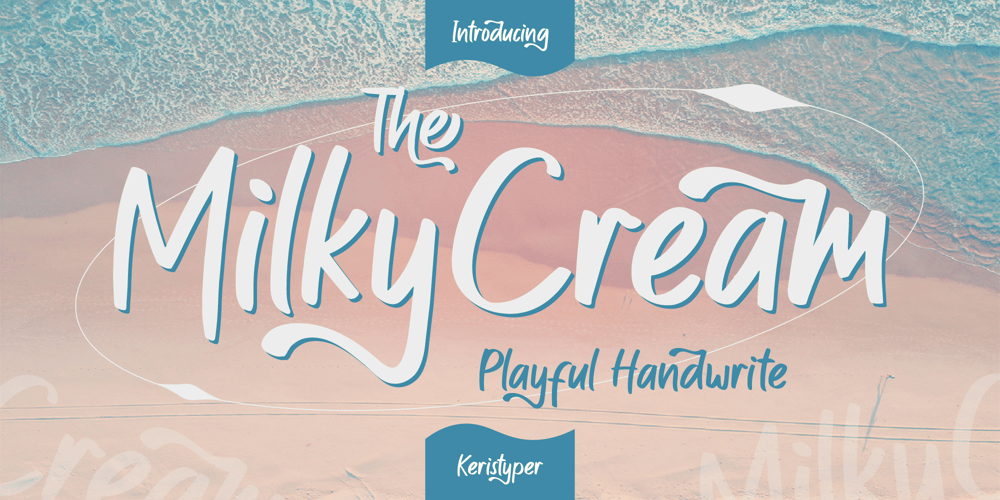
Milky Cream Font Family was designed by Tezar Tantular and published by Keristyper Studio. Milky Cream contains 1 styles and family package options. Milky Cream is a cool and playful handmade marker font. This font is good for logo design, Social media, Movie Titles, Books Titles, short text even long text letters, and good for your secondary text font with sans or serif.Featured: Standard Uppercase & Lowercase Numeral & Punctuation Multilingual : ä ö ü Ä Ö Ü ß ¿ ¡ Alternate & Ligature PUA encoded We recommend programs that support the OpenType feature and the Glyphs panel such as Adobe applications or Corel Draw. so you can use all the variations of the glyphs. Hope you enjoy our fonts!